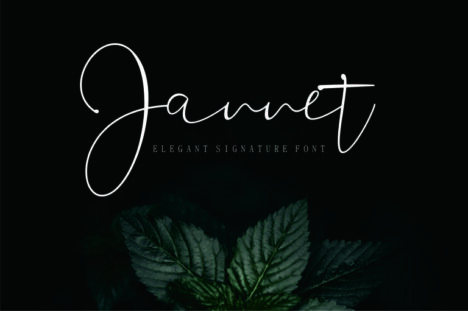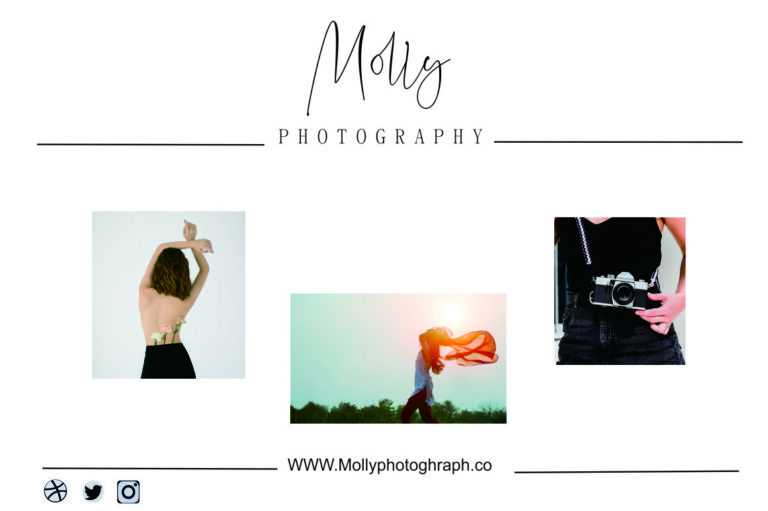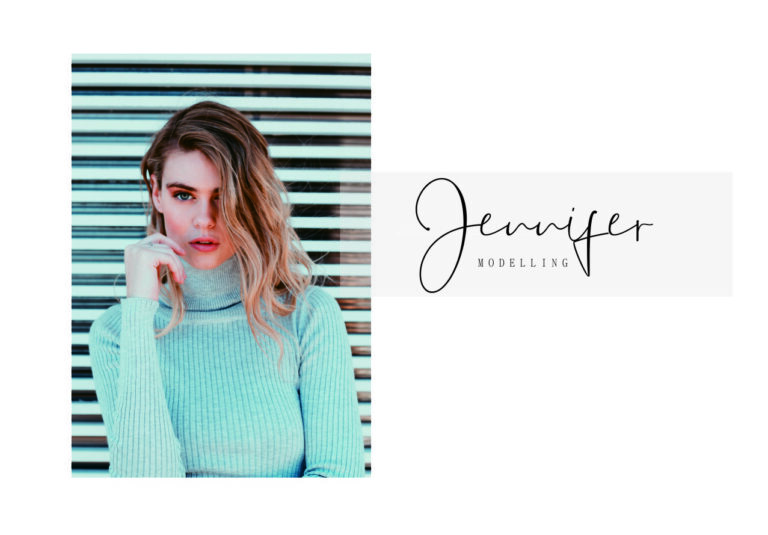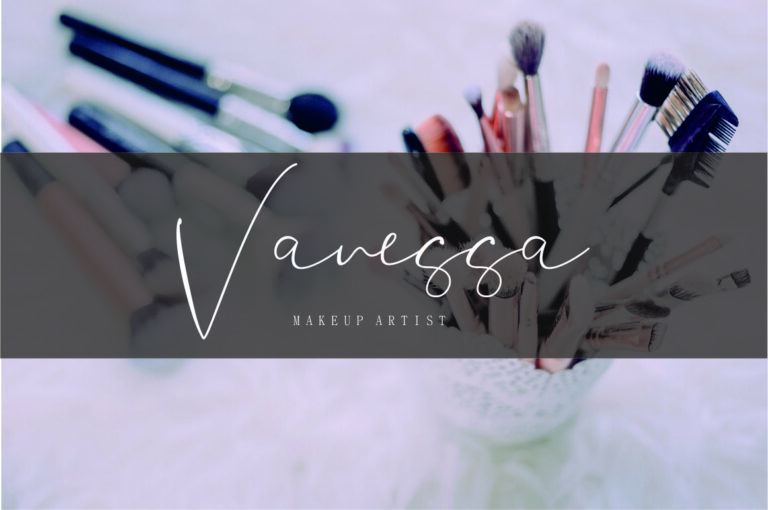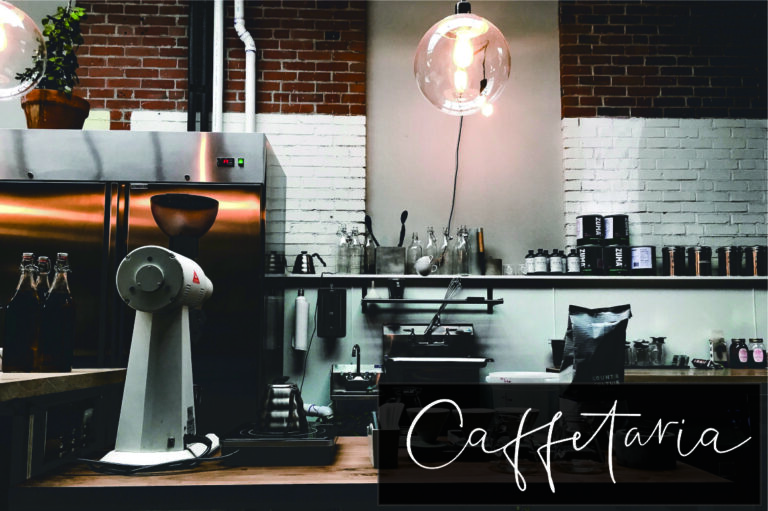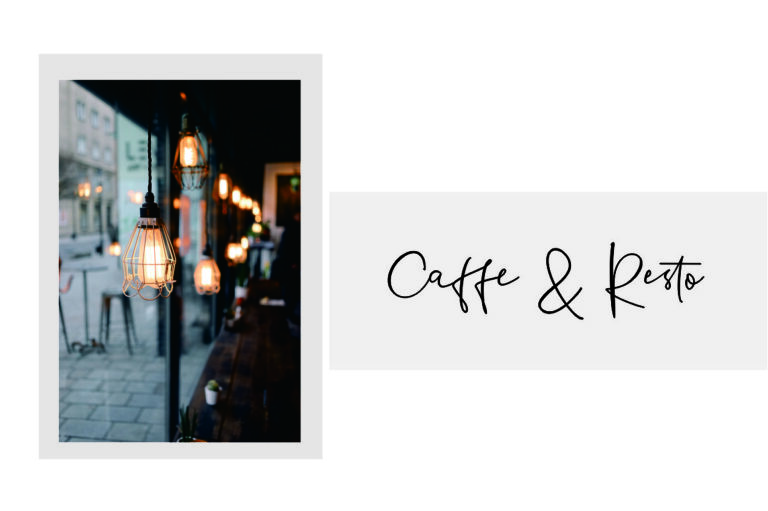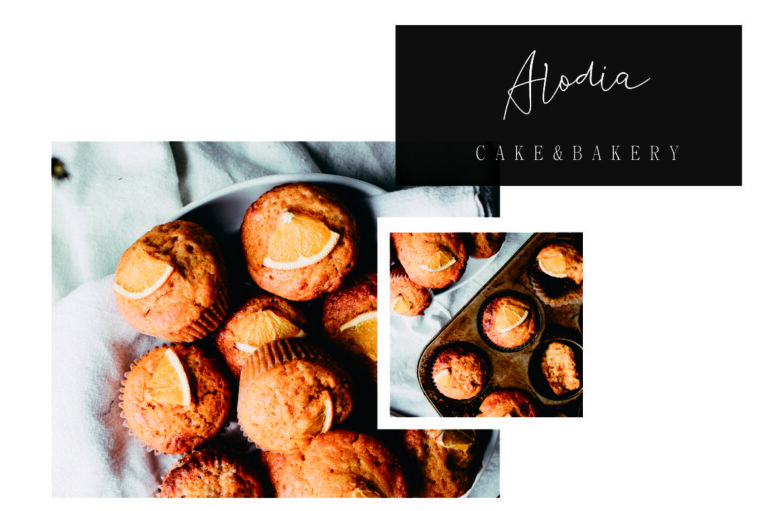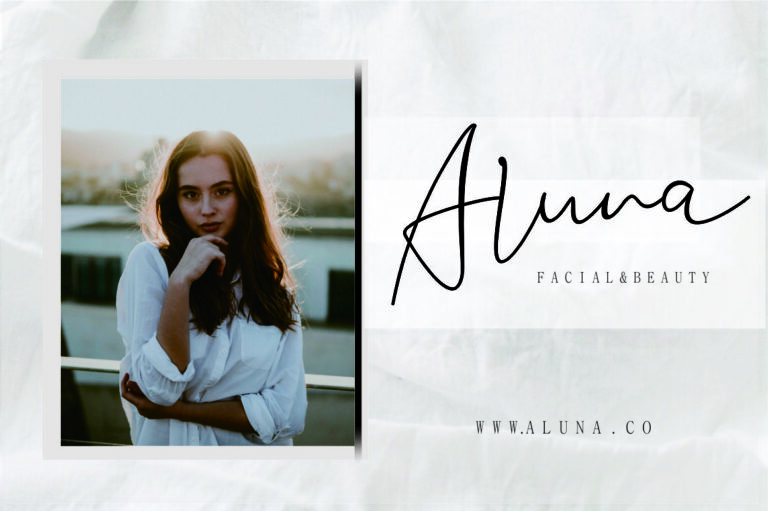
Jannet - Signature font
Jannet – Font is a new stylish display font.I’tsPerfect for logo,branding, tittle, social media posts, advertisements, product packaging, product designs, label, photography, watermark, special event,magazine,web design,etc. If you have any questions please don’t hesitate to contact me.